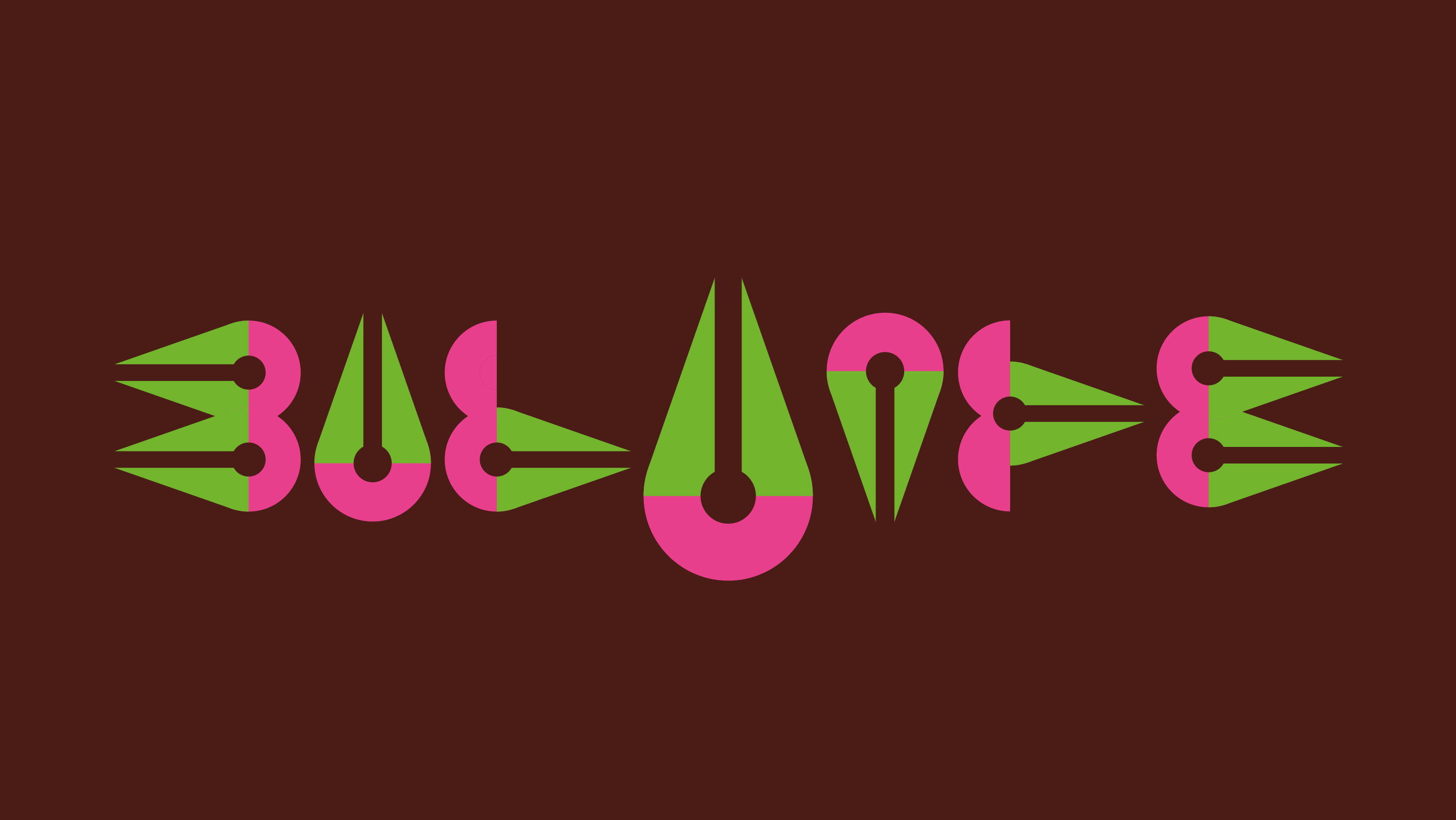
Balance
This design is part of a series based on words that define my design process. Each word has its own unique design, with more still to come. Inspired by a scale, I created a balanced composition by mirroring the same shapes on both sides of the center. The vibrant colors reflect energy